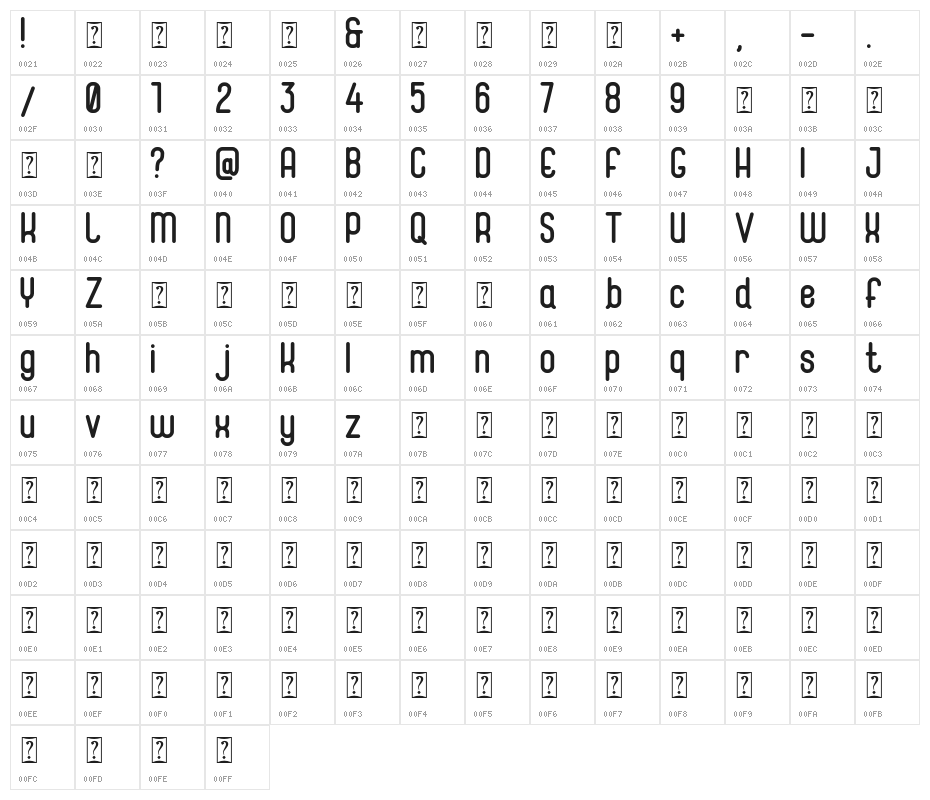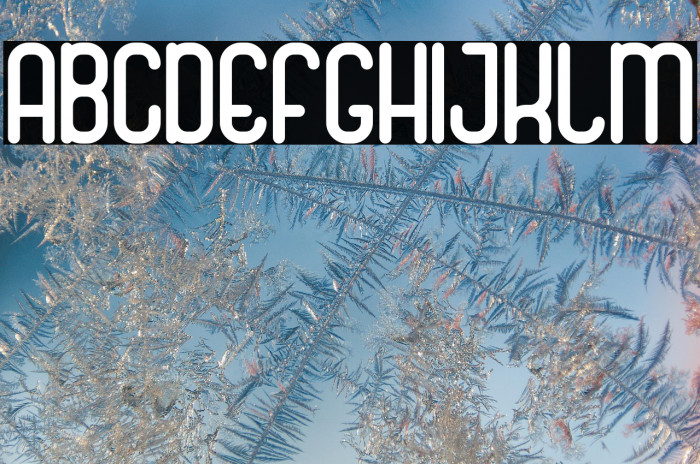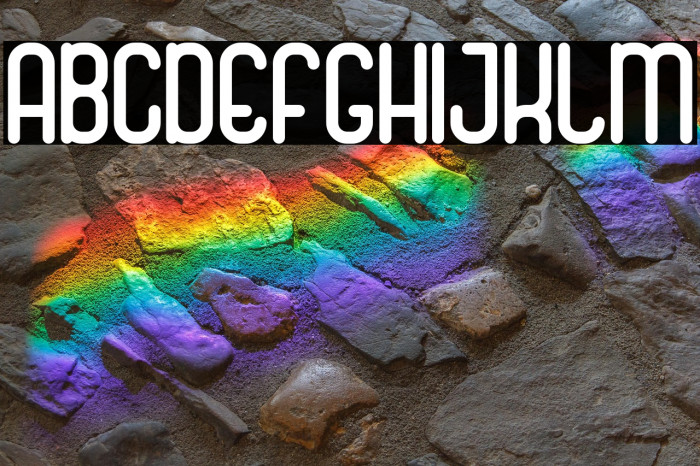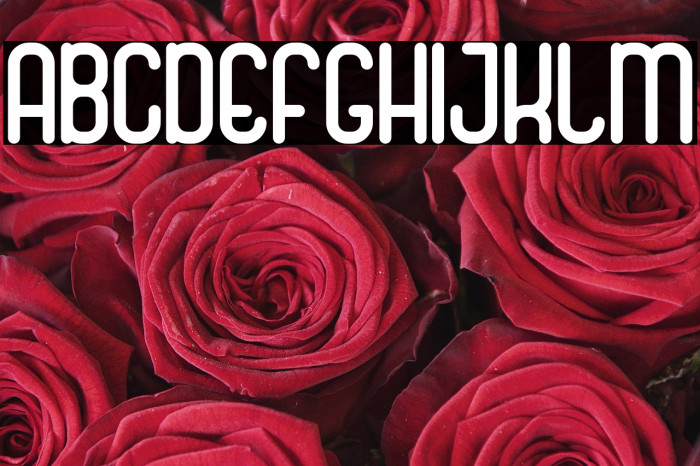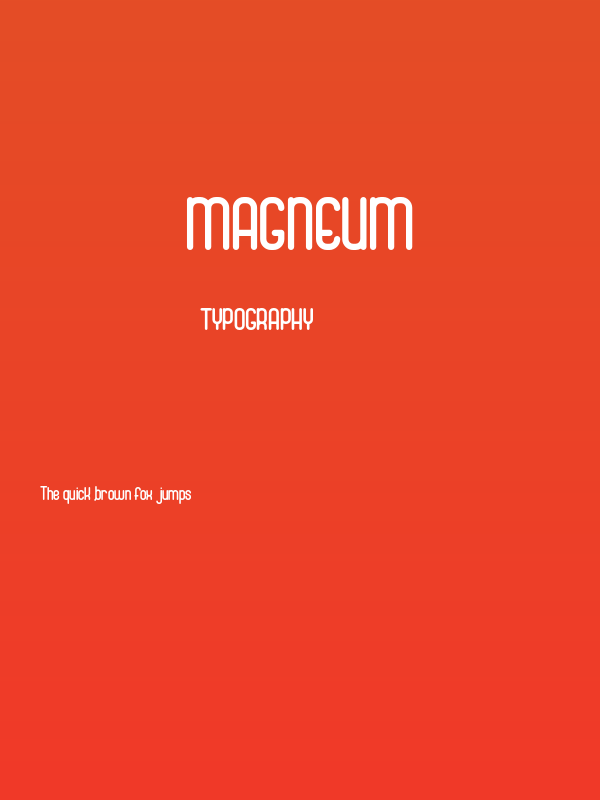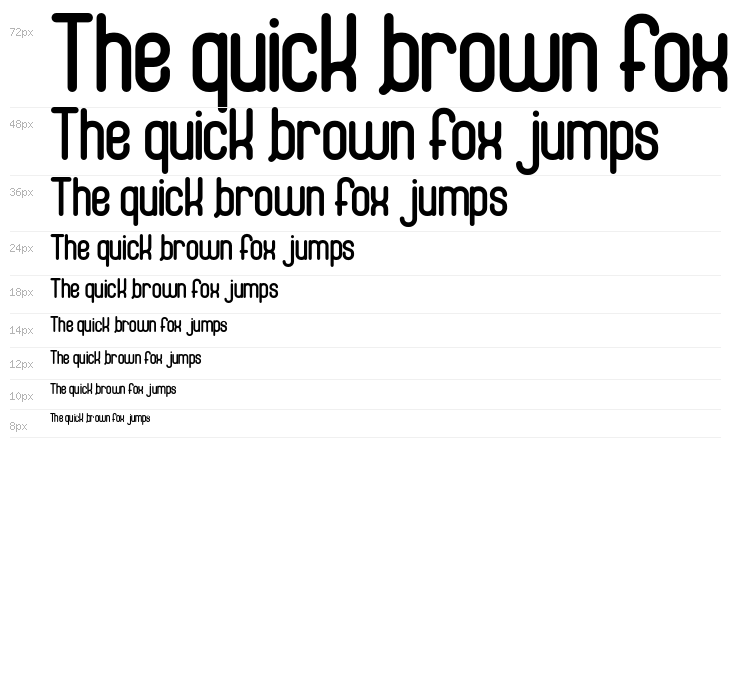
Magneum Description
This font features a modern and sleek design with rounded edges and a uniform stroke width. The characters are tall and narrow, giving it a condensed appearance. The uppercase and lowercase letters maintain a consistent style, with smooth curves and a clean finish. The numerals are distinct and align well with the overall aesthetic. Special characters are included, maintaining the same rounded and contemporary style. This font is versatile, suitable for both digital and print media, offering a fresh and approachable look.
| Use Case | Headlines, Logos, Digital Media |
| Proposed Projects | Ideal for branding, advertising, and digital media projects that require a modern and approachable aesthetic. |